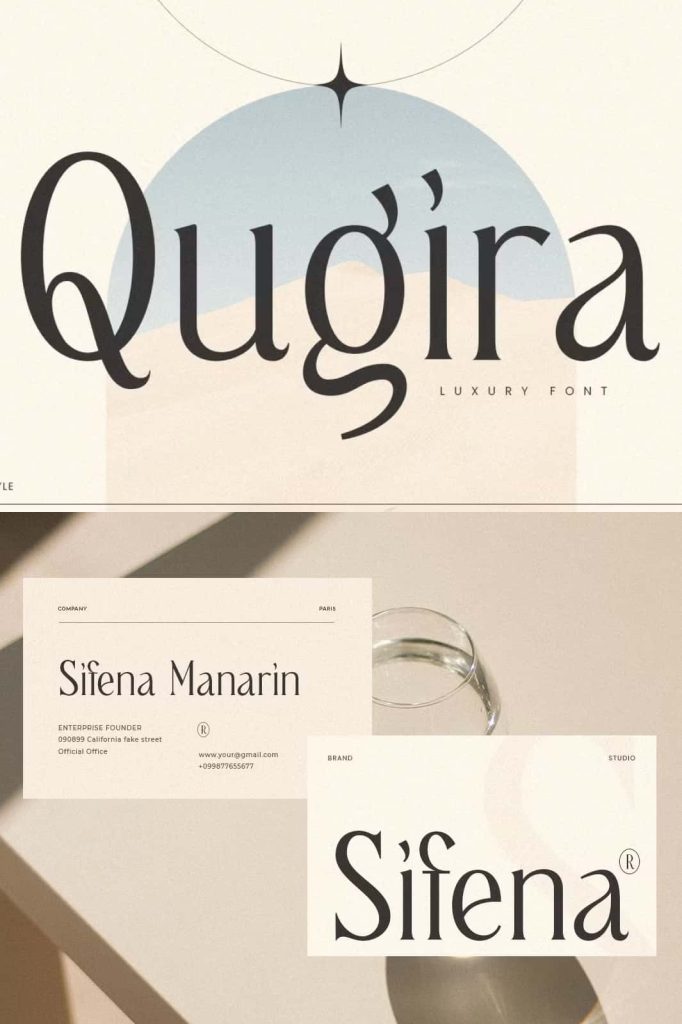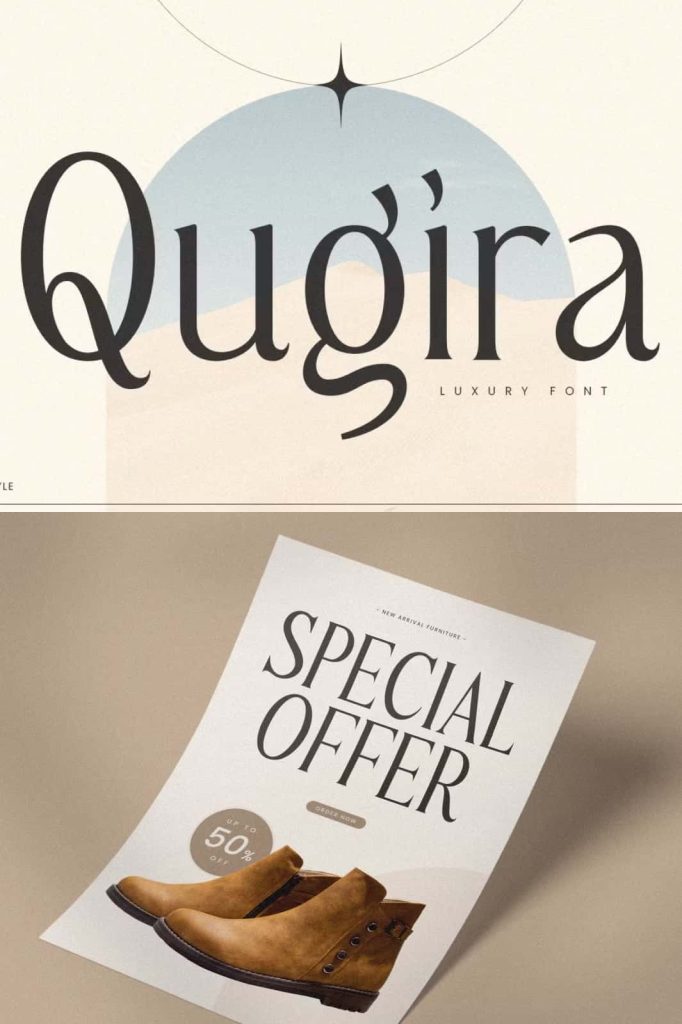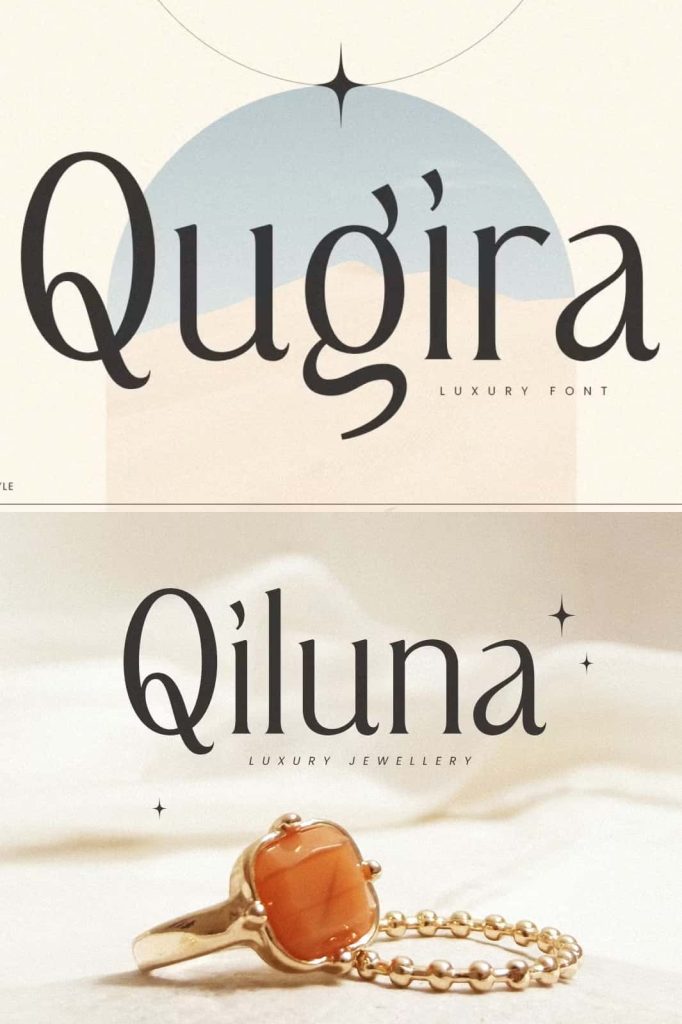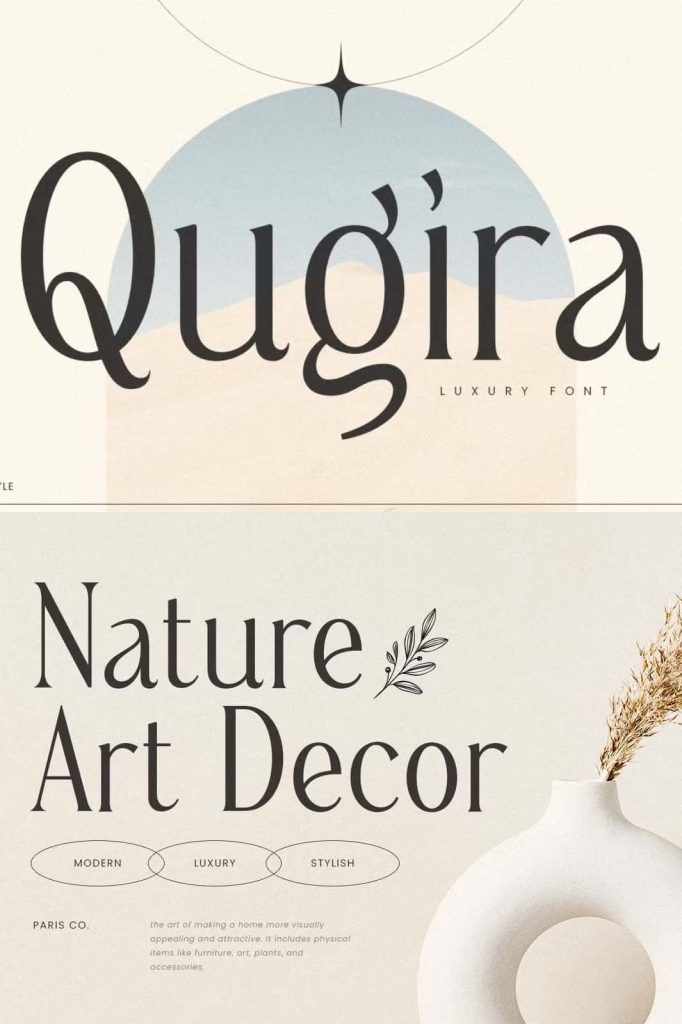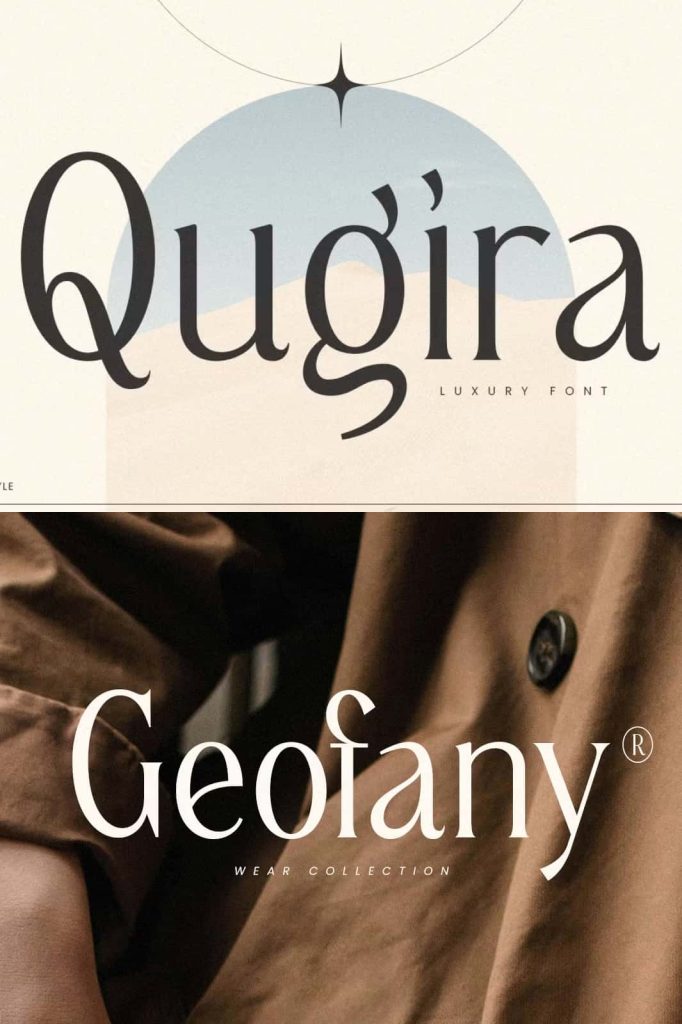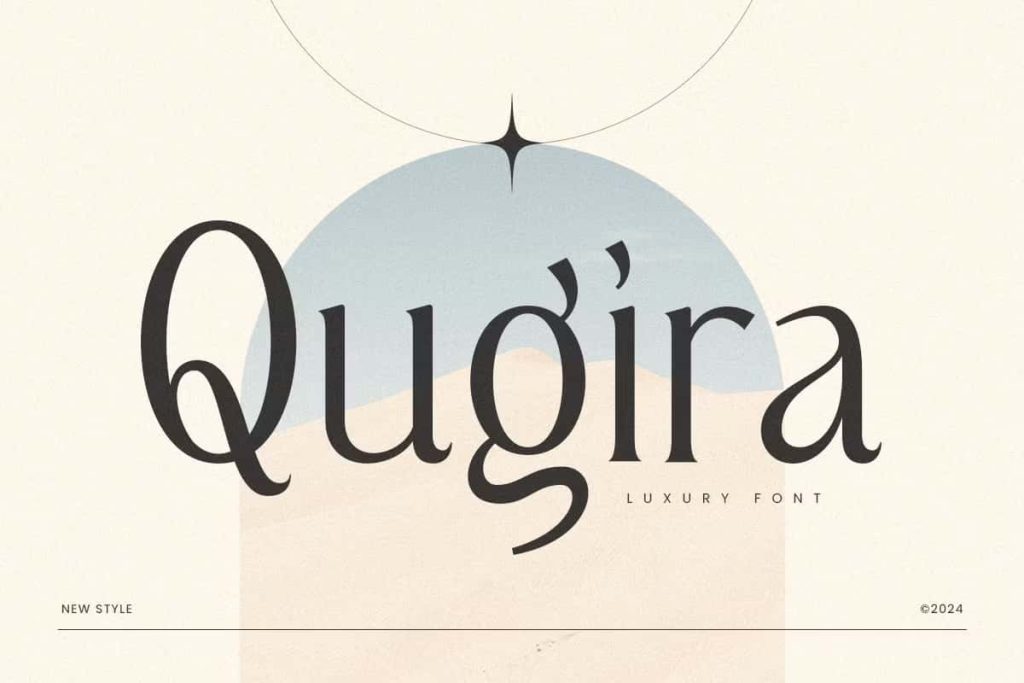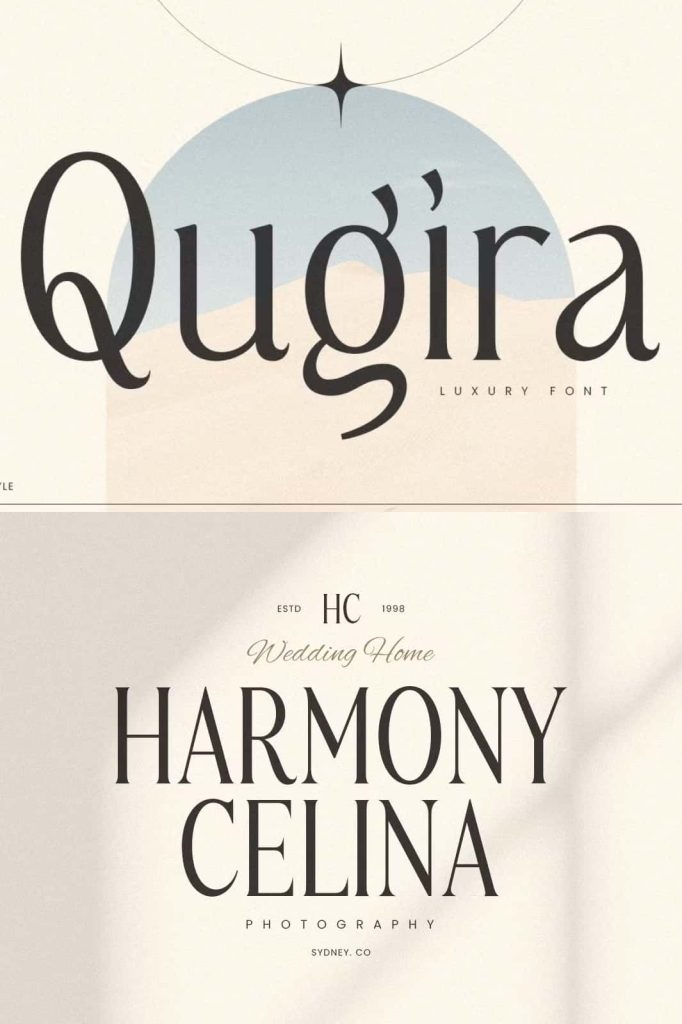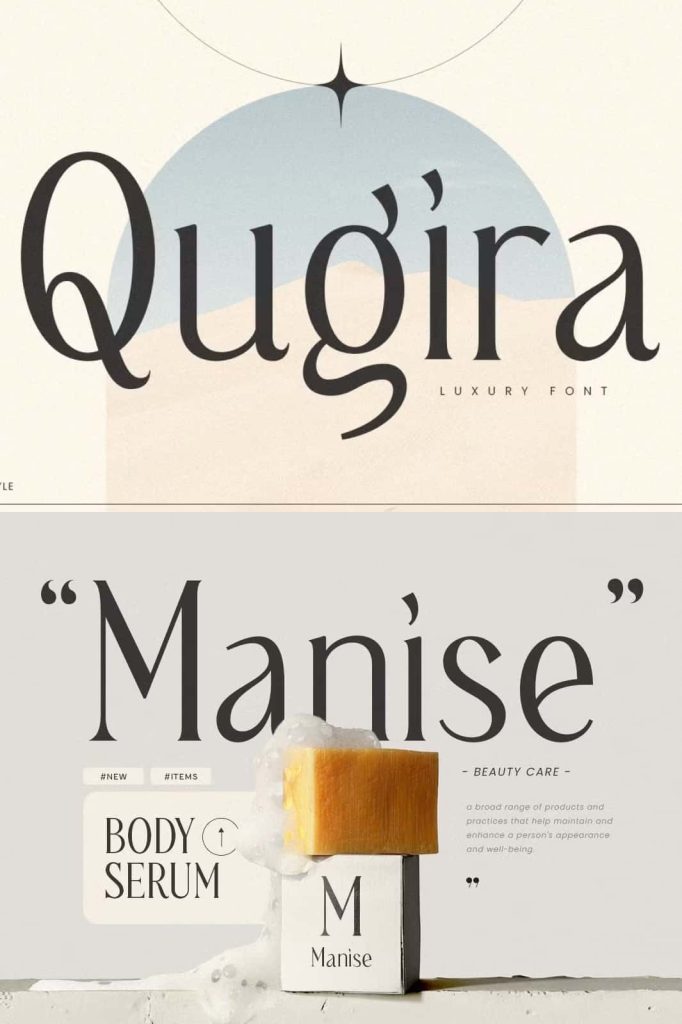
An exclusive luxury font tailored for sophisticated and modern branding, offering an elegant aesthetic to enhance your brand’s allure. Crafted with unique alternates, this font is designed to elevate the value of your brand.